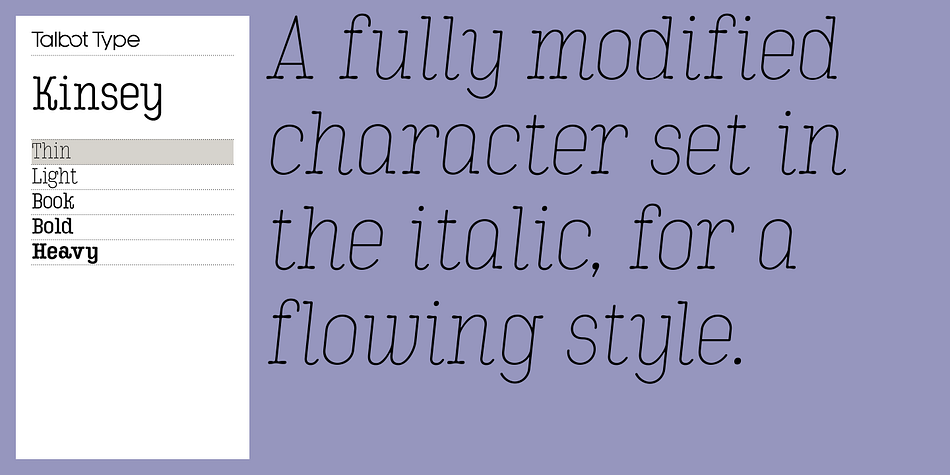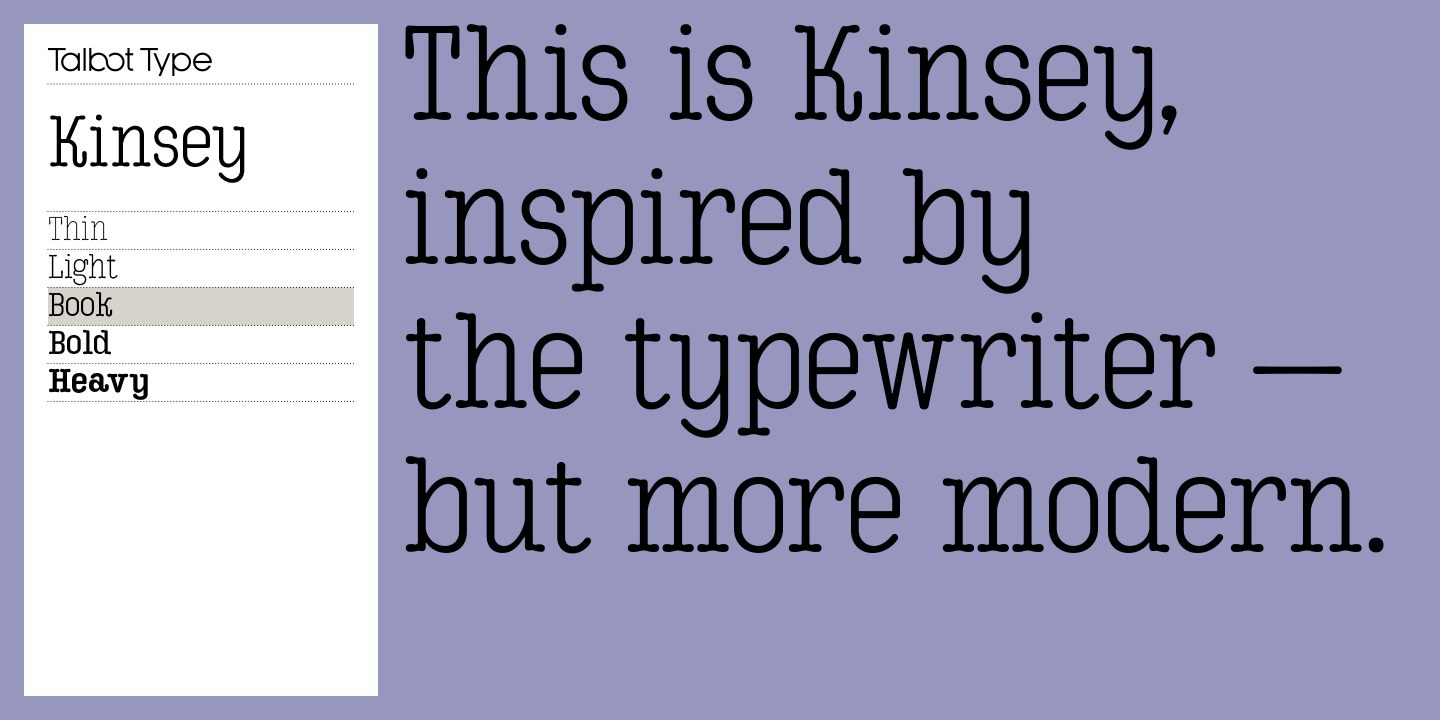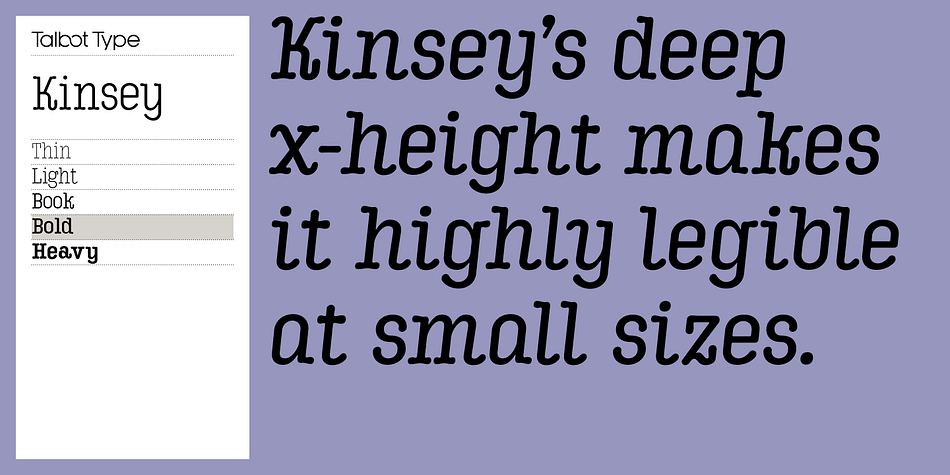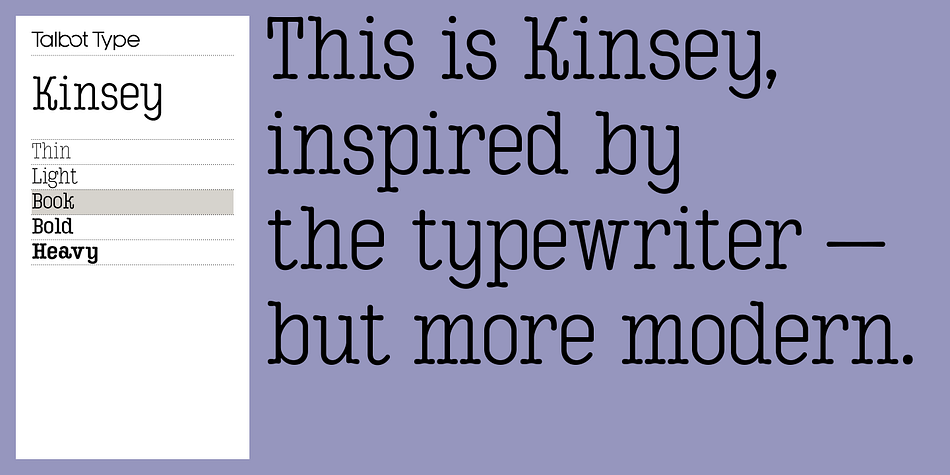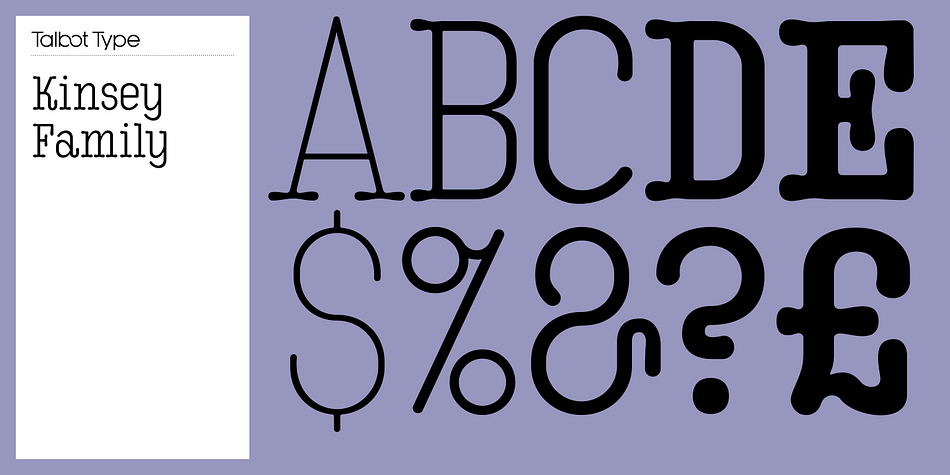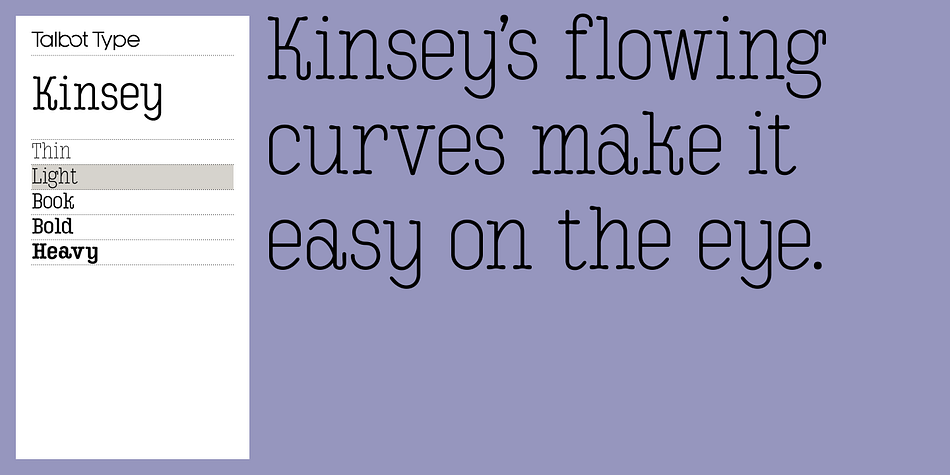
Designed by Adrian Talbot, Kinsey is a typewriter, display serif and display slab font family. This typeface has ten styles and was published by Talbot Type.
Kinsey is inspired by traditional typewriter font styles. Although now largely consigned to history, the bulbous slab serifs and soft curves of typewriter fonts have left a lasting legacy; they’re paradoxically easy on the eye, yet utilitarian and business-like.
Kinsey offers a modern take on this classic style and is available in a full family of five weights and includes a ‘proper’ italic with modified characters for an easy, flowing style.